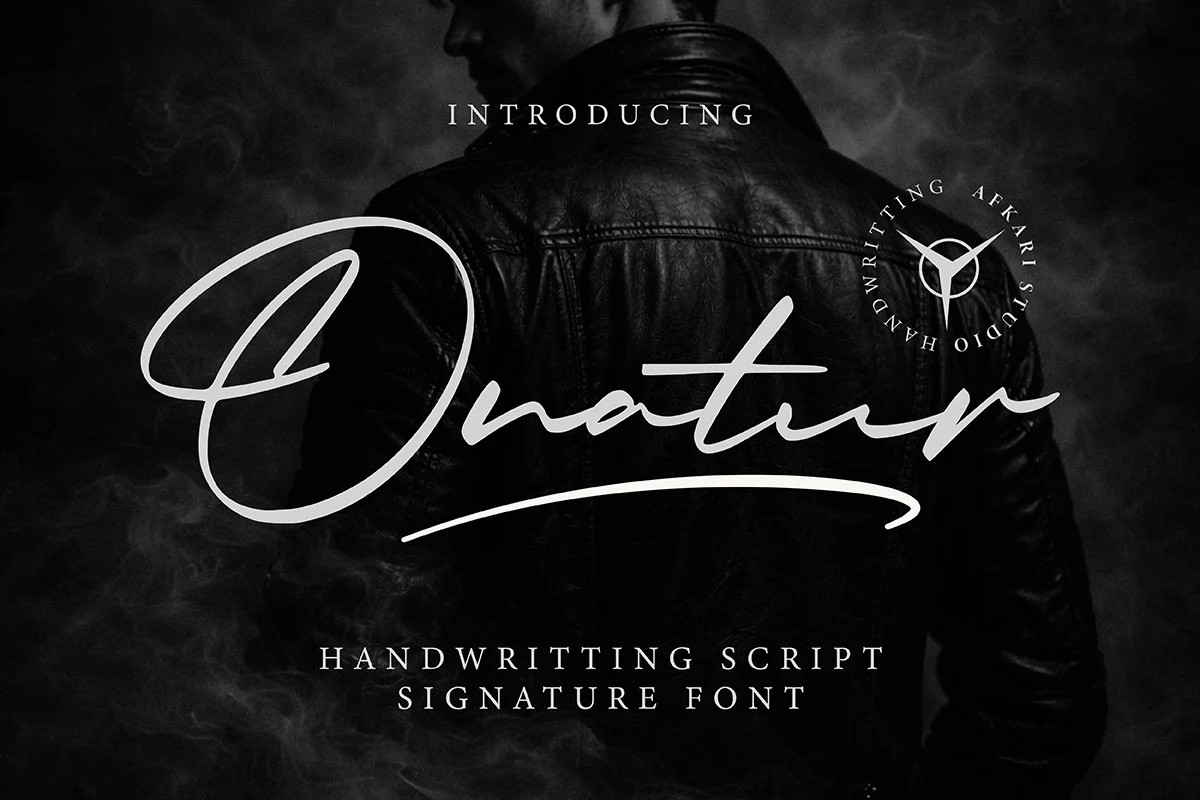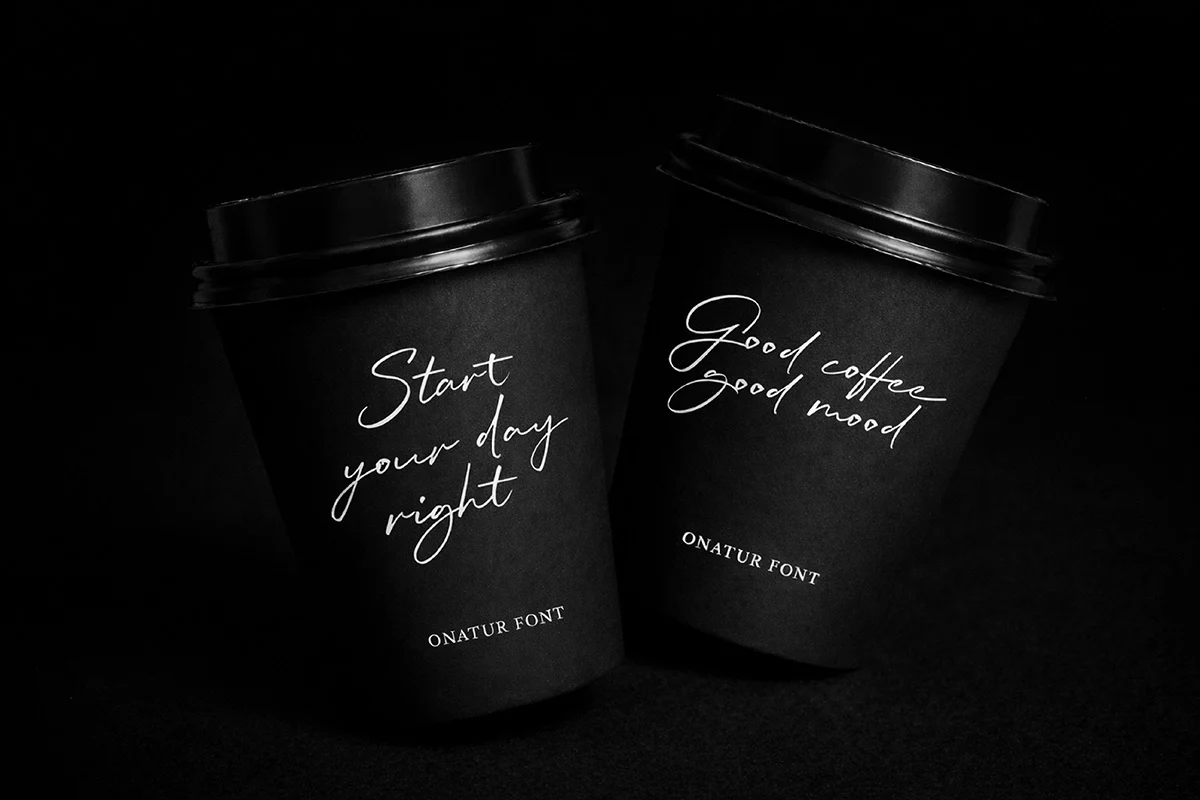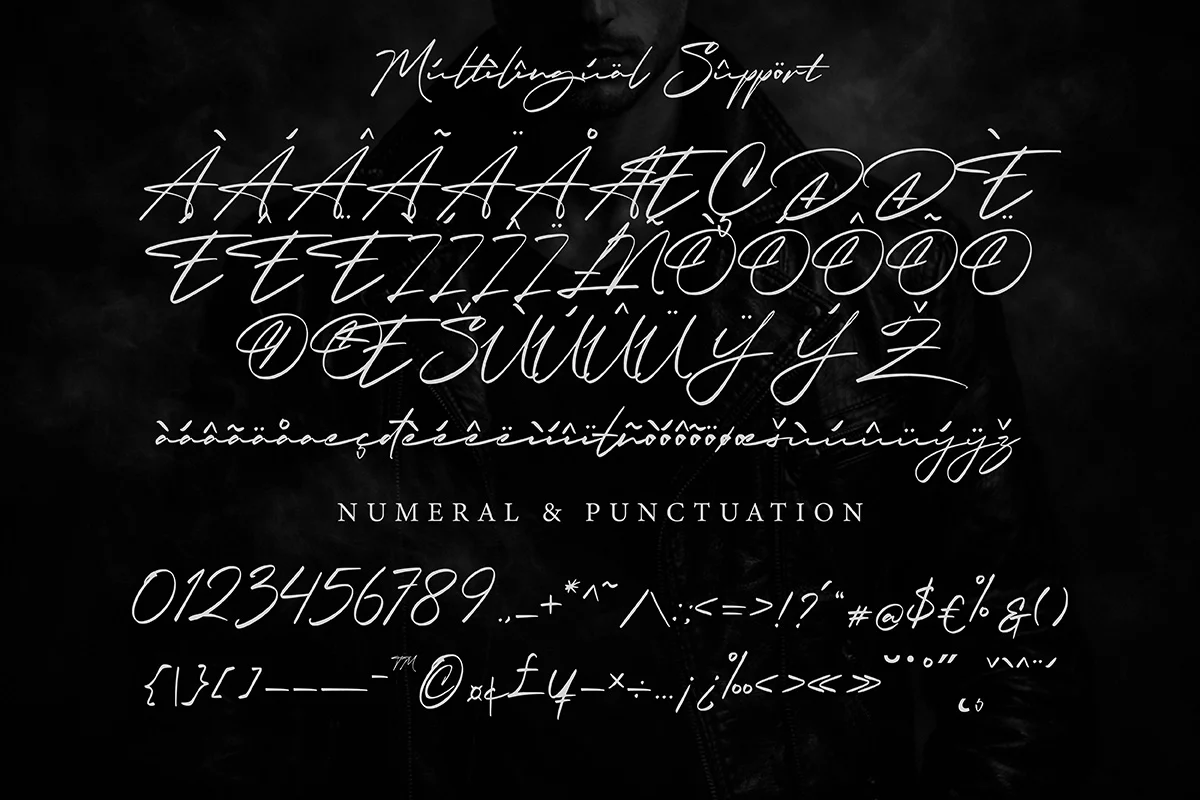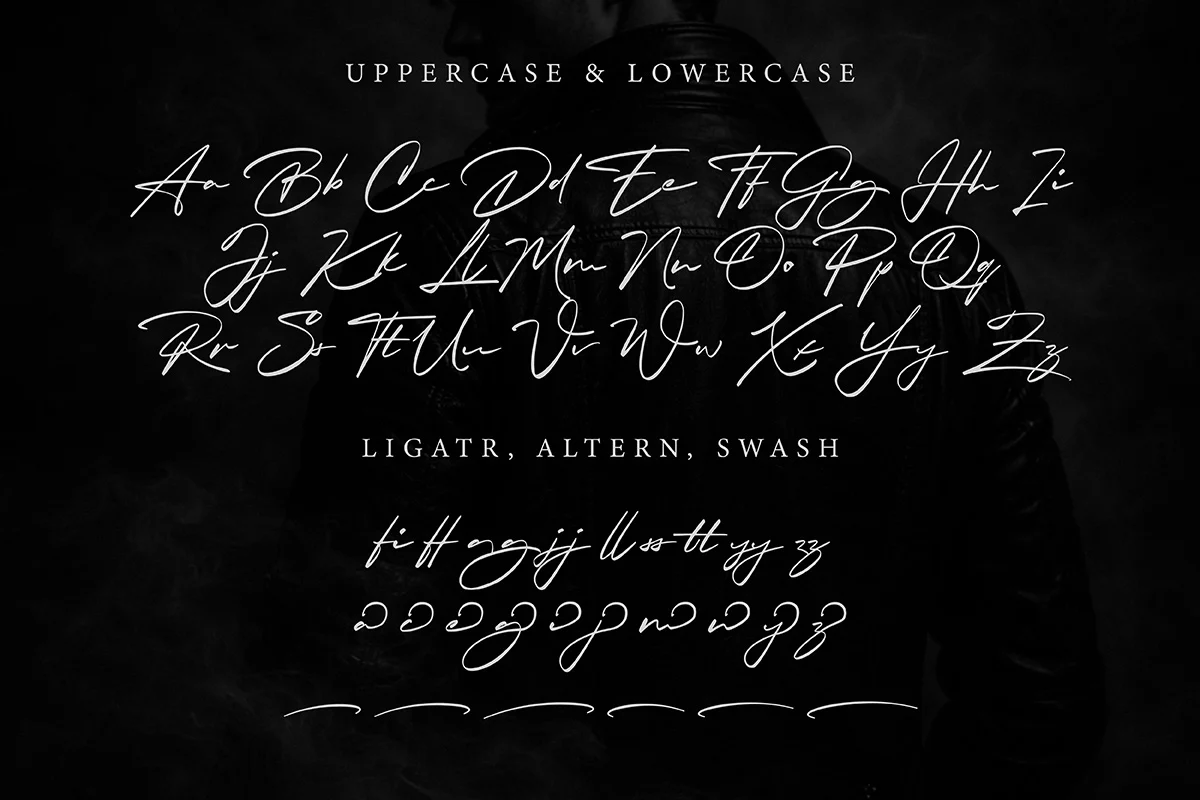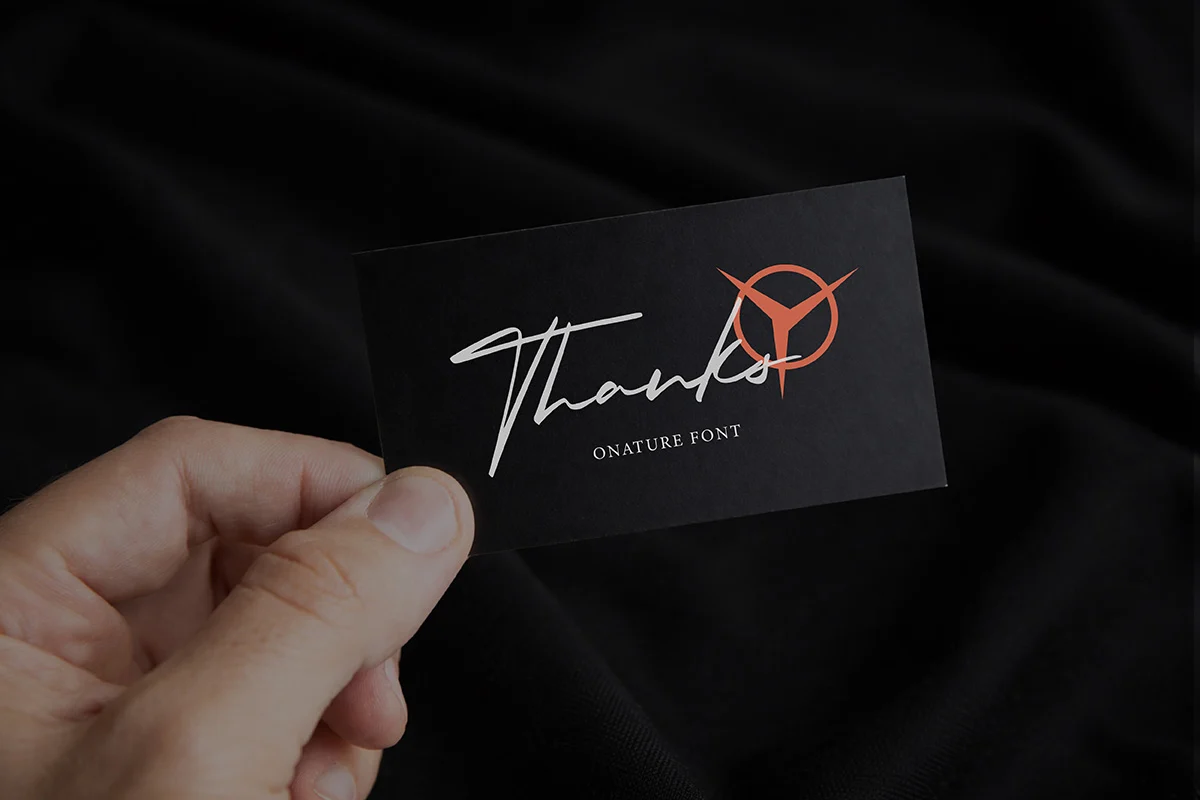
Onatur is a modern handwritten signature script font crafted to create elegant, natural, and stylish typography. Inspired by authentic handwriting, this font delivers smooth strokes and flowing letterforms that add a personal and professional touch to any design.
Perfect for branding and signature-style layouts, Onatur combines readability with graceful handwritten movement, making it ideal for both digital and print projects. Whether used for logos, packaging, social media, or personal branding, this font enhances designs with a warm and sophisticated handwritten feel.
Onatur is ideal for designers seeking a clean, stylish, and versatile signature script font.
- Elegant handwritten signature style
- Natural flowing strokes
- Uppercase & lowercase characters
- Numbers & punctuation
- Smooth script connections
- Ideal for branding & signature logos
- MültîlÃñgúãl Sùppört for; ä ö ü Ä Ö Ü ß ¿ ¡
Onatur is ideal for designers and creators looking for a clean and versatile signature script font that enhances projects with a refined handwritten feel.